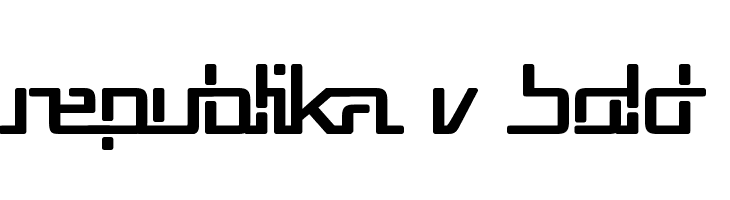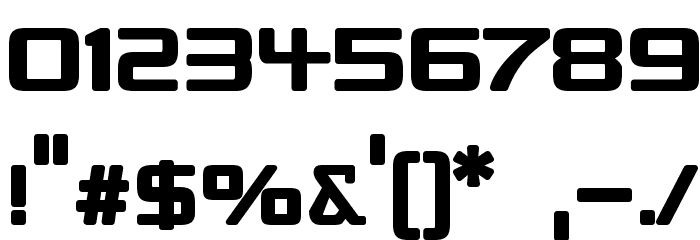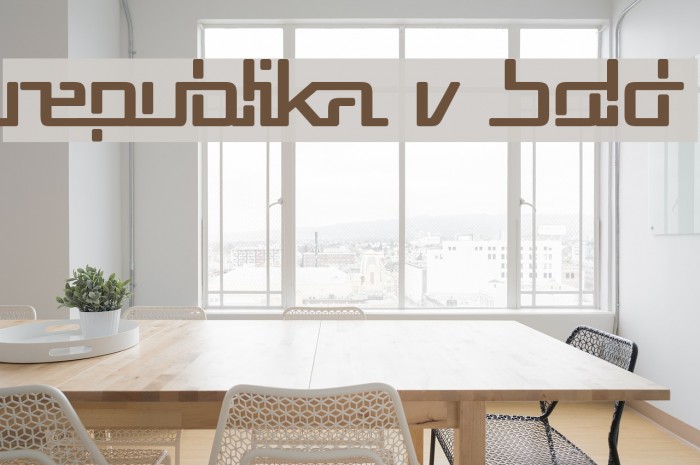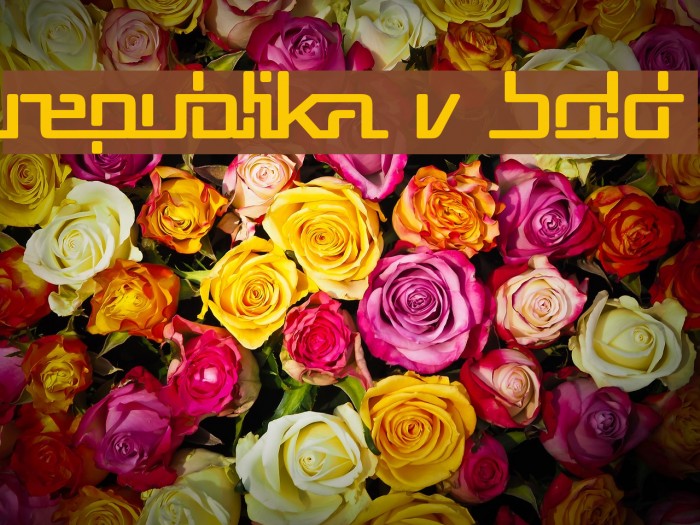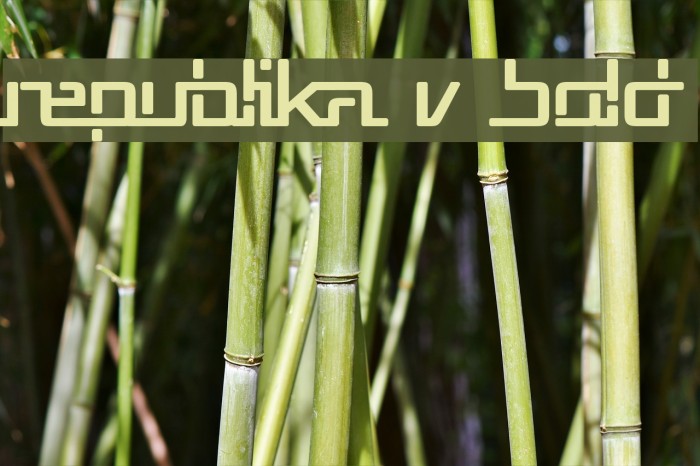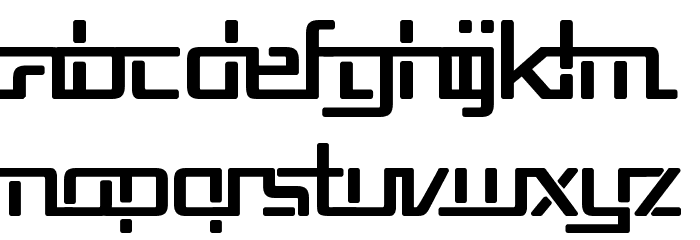
Republika V Bold Font
Republika V Bold Description
This font features a bold, geometric design with a futuristic aesthetic. The characters are constructed with consistent line thickness, giving it a strong and uniform appearance. The angular and squared-off shapes create a modern and technical feel, making it ideal for projects that require a contemporary and edgy look. The font maintains a consistent baseline and x-height, ensuring readability while still offering a unique style. The numerals and special characters are designed to match the boldness and geometric nature of the alphabet, providing a cohesive overall appearance.
A bold, geometric font with a futuristic and technical aesthetic from Uncategorized fonts.
- Proposed Projects: Ideal for technology branding, video game titles, sci-fi movie posters, and modern digital interfaces.